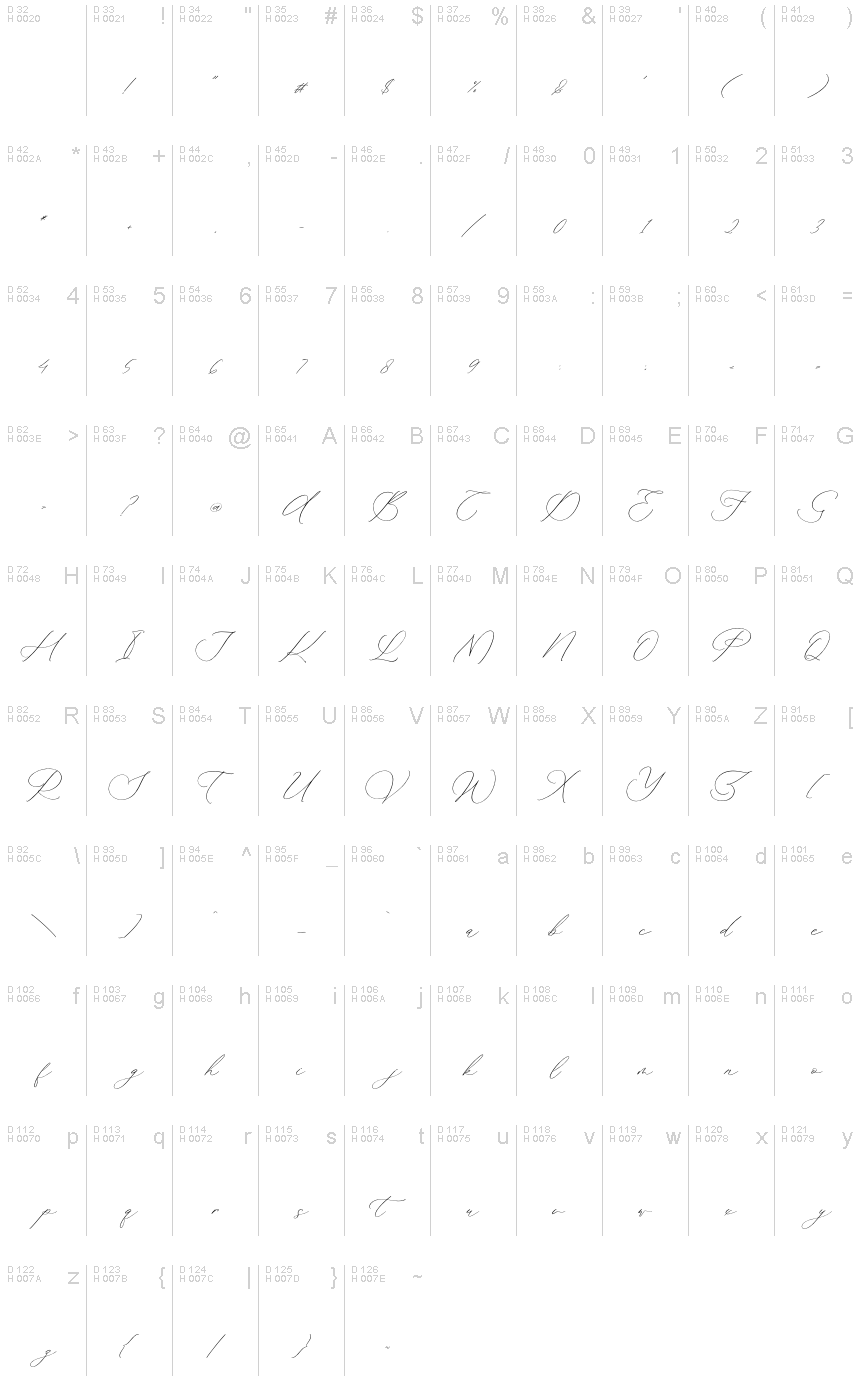
Waittelian Grolinda
Waittelian Grolinda font by Storytype Studio embodies elegance and sophistication with its signature handwritten style. This light font exudes a graceful charm, making it perfect for projects that require a personal touch. Its fluid strokes and delicate curves create a sense of refinement, ideal for branding, wedding invitations, or artistic designs seeking a timeless appeal.
As a free font available for download, Waittelian Grolinda offers versatility across various design contexts. Whether you're enhancing digital media or crafting exquisite print materials, this font adds an air of distinction and allure to your work. Embrace the artistic flair of Waittelian Grolinda to elevate your designs with its uniquely captivating aesthetic.